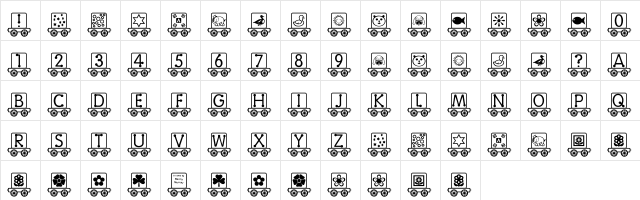
RMBlock Font Preview
RMBlock
Design Context for RMBlock Typeface
RMBlock is a composed and adaptable typeface that performs quietly and consistently across a wide range of design contexts.